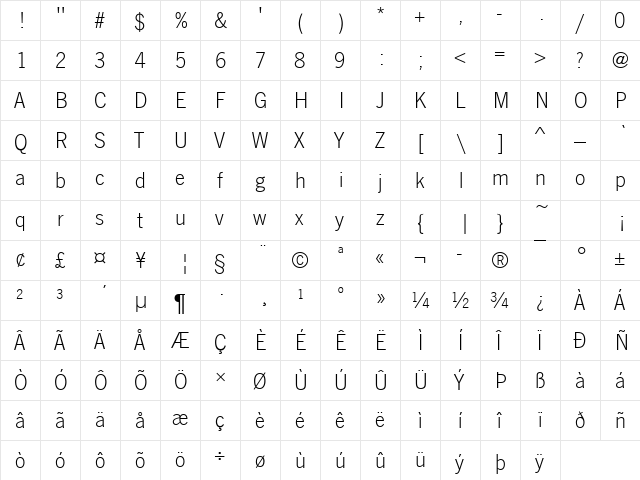
News Gothic Becker Light Regular
Design Context for News Gothic Becker Light Typeface
News Gothic Becker Light has the quiet confidence of well-executed sans-serif typography: versatile, unobtrusive, and dependable at any size. The delicate stroke weight brings airiness and refinement to layouts.
Ideal for fashion and beauty branding, minimal editorial layouts, and premium digital experiences.
Font Pairing: Pair News Gothic Becker Light with a medium or bold serif for headlines — the weight contrast creates an elegant, high-end feel.
Pro Tip: Avoid using News Gothic Becker Light at very small sizes where its slender strokes can disappear. It performs best at medium to large sizes.